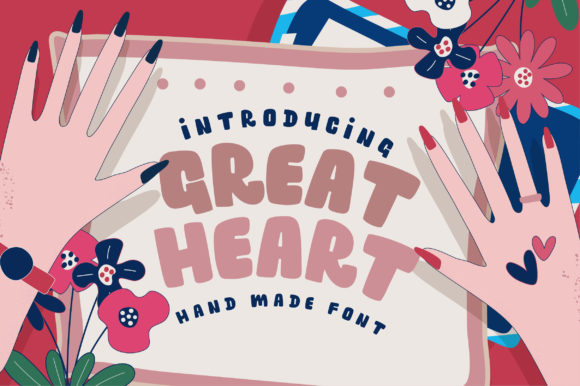
Great Heart Font
Introducing the Great Heart Font: A Playful and Joyful Display Font That Will Capture Hearts
Embark on a whimsical journey with the Great Heart Font, a captivating display font that exudes charm and playfulness. Inspired by the innocent wonder of childhood, this font dances across your designs, bringing a smile to your face and warmth to your heart.
Crafted with meticulous attention to detail by the renowned Caoca Studio, Great Heart is not just another font; it's a work of art. Each letter is hand-drawn with love, resulting in a font that is as unique and expressive as your imagination. The bold strokes and playful curves invite you to create designs that resonate with joy and creativity.
Whether you're a seasoned designer or just starting your creative adventure, Great Heart is your perfect companion. Its versatility knows no bounds, effortlessly adapting to a myriad of projects. Design eye-catching posters that demand attention, create playful text that engages your audience, or craft enchanting titles that leave a lasting impression. The possibilities are endless, limited only by your imagination.
But wait, there's more! As a special bonus, the Great Heart Font comes bundled with a treasure trove of delightful illustrations. These charming drawings, meticulously crafted to complement the font, add an extra layer of whimsy and fun to your designs. Create enchanting invitations, design captivating social media posts, or add a touch of magic to your website. The possibilities are endless!
So, dear creative soul, embrace the Great Heart Font and let your imagination soar. Allow this font to be your muse, guiding you on a journey of creativity and self-expression. With Great Heart by your side, your designs will radiate with joy, capturing hearts and spreading happiness wherever they go.